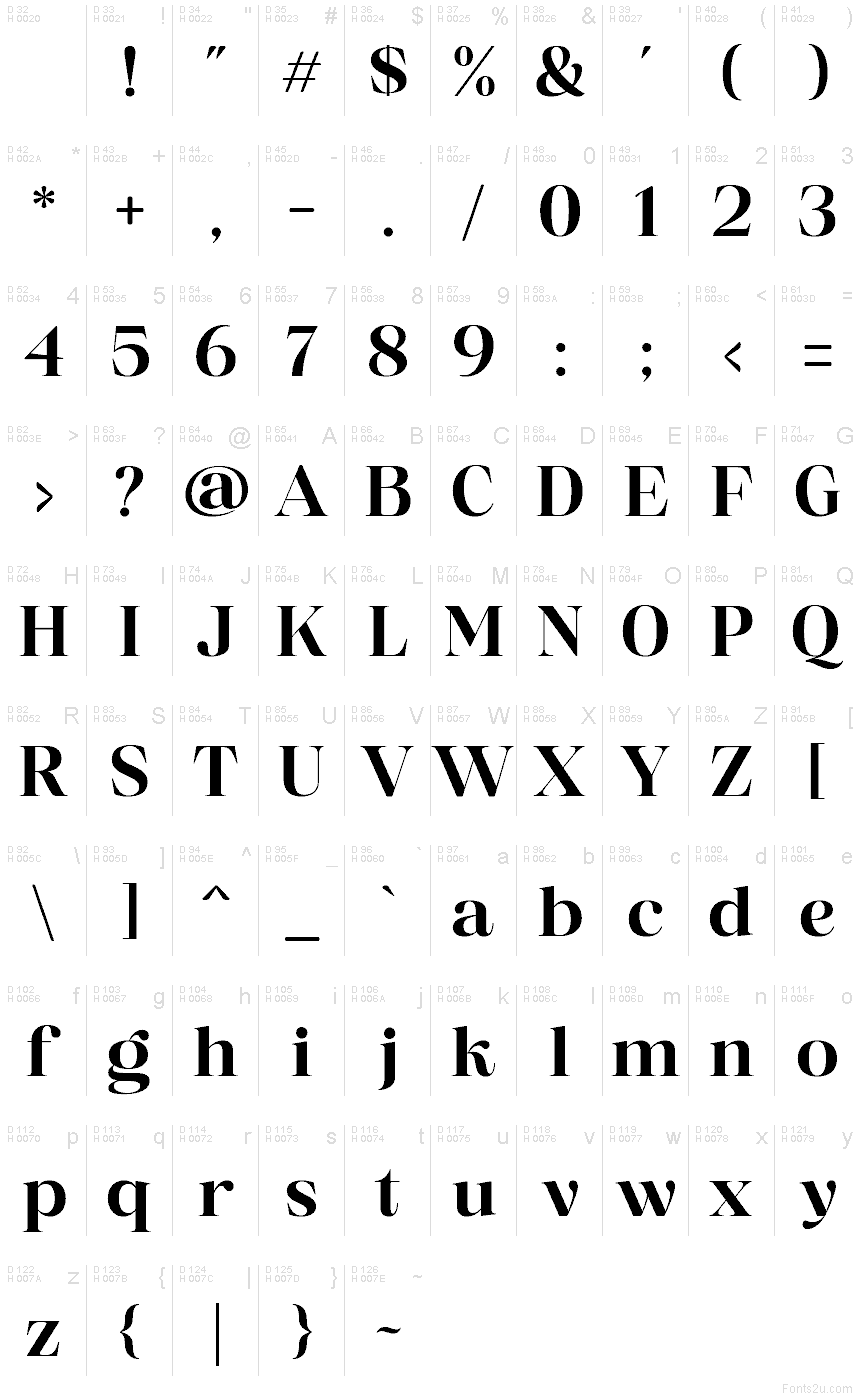
Misticaly Bold
Misticaly Bold font by Mega Type is a free serif typeface. Rooted in the Misticaly family, its lush ball terminals and sculpted wedges create a glossy, ink-rich rhythm that feels both polished and dramatic. The tight spacing and upright stance carry a couture attitude, giving headlines a confident snap without sacrificing elegance.
Using Misticaly Bold, you’ll get striking results for fashion branding, boutique logos, beauty packaging, magazine covers, book jackets, and statement posters. This free font shines when set large, where the contrast breathes and curves read like brushstrokes; add a touch of tracking if you need it smaller. Pair with a clean, light-weight geometric sans to keep body text calm and let the serif do the talking.